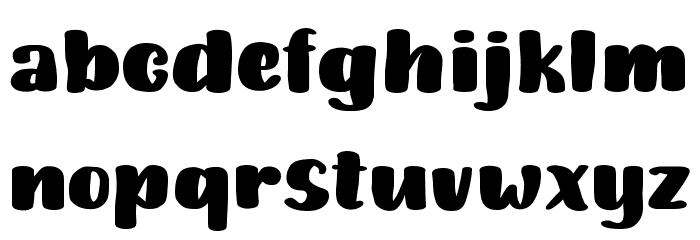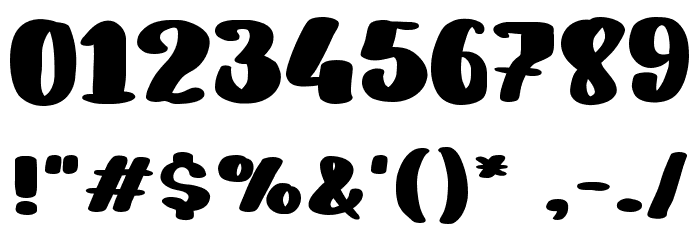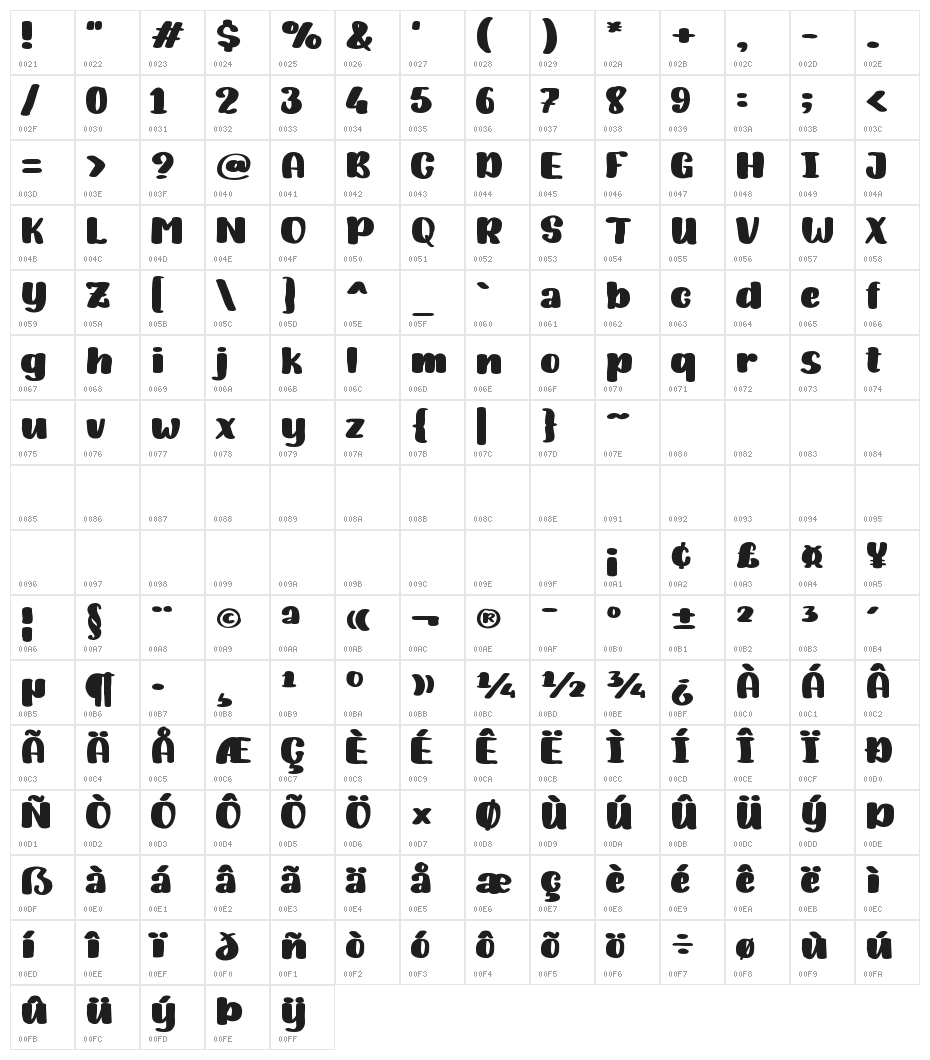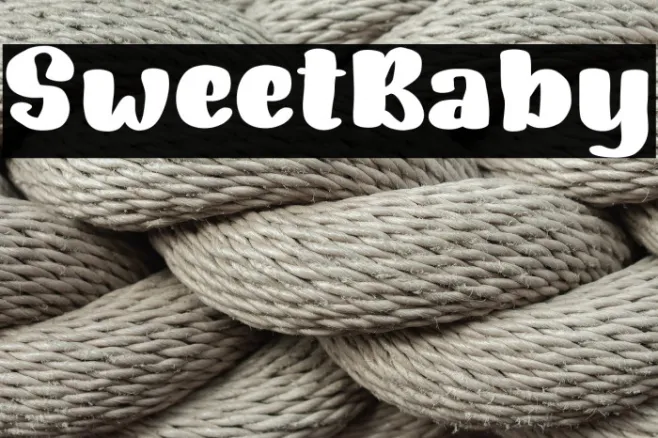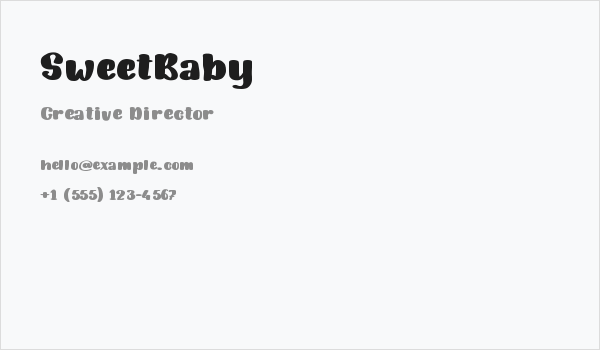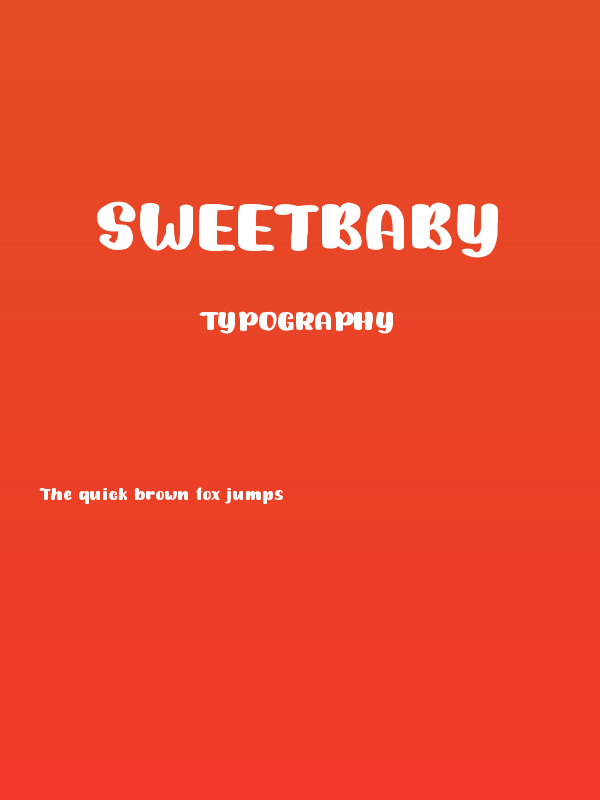
SweetBaby Font
This playful and bold font features rounded, thick strokes that give it a friendly and approachable appearance. The characters are designed with a consistent weight, creating a uniform look across both uppercase and lowercase letters. The font's style is reminiscent of hand-drawn lettering, with a slight bounce and irregularity that adds to its charm. The numbers and special characters maintain the same whimsical quality, making it suitable for a variety of creative applications. Its boldness ensures high readability, even at smaller sizes, while the rounded edges soften its overall impact, making it ideal for projects that require a fun and inviting aesthetic.
A playful, bold font with rounded, thick strokes and a hand-drawn feel.
- Proposed Projects: Ideal for children's books, playful branding, greeting cards, and posters.
- Overall Style: Playful, Hand-drawn